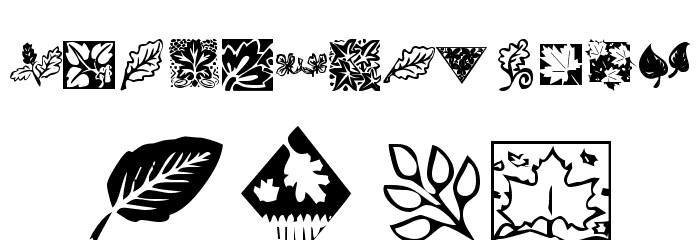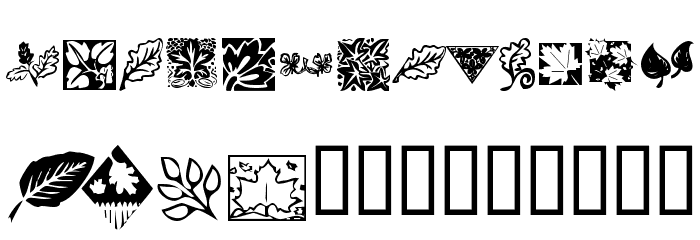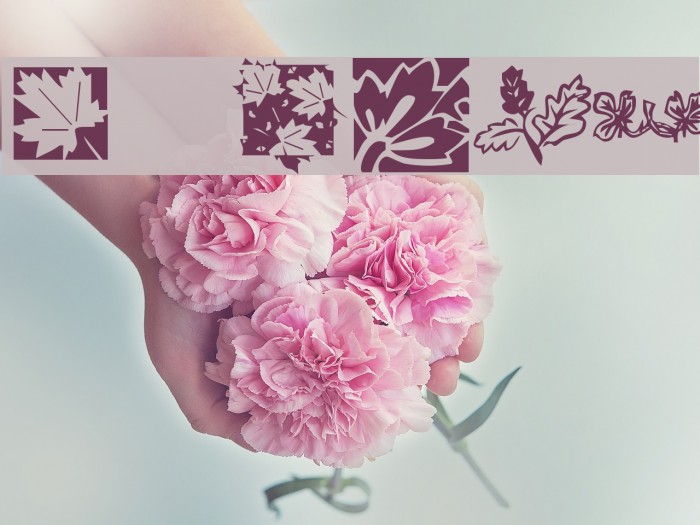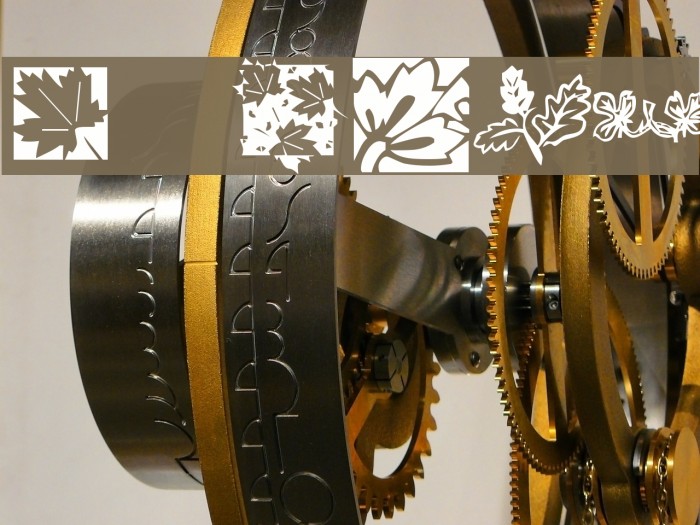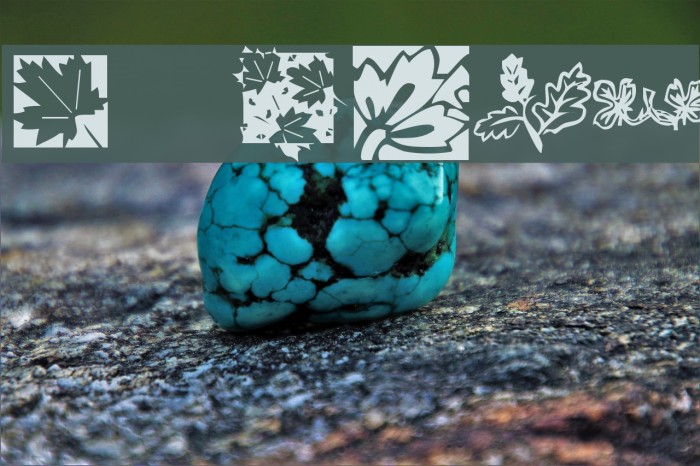
KR Leafy Font
This is not a traditional font but rather a collection of decorative leaf-themed symbols and icons. Each character is represented by a unique leaf design, ranging from simple outlines to intricate patterns. The designs include various types of leaves, some enclosed in geometric shapes, and others standalone. The style is bold and graphic, with a strong emphasis on natural motifs. These symbols are ideal for adding a botanical or organic touch to design projects.
A decorative collection of leaf-themed symbols and icons.
- Proposed Projects: Ideal for nature-themed designs, eco-friendly branding, decorative borders, or botanical illustrations.
- Use Case: Logos, Decorative elements, Illustrations